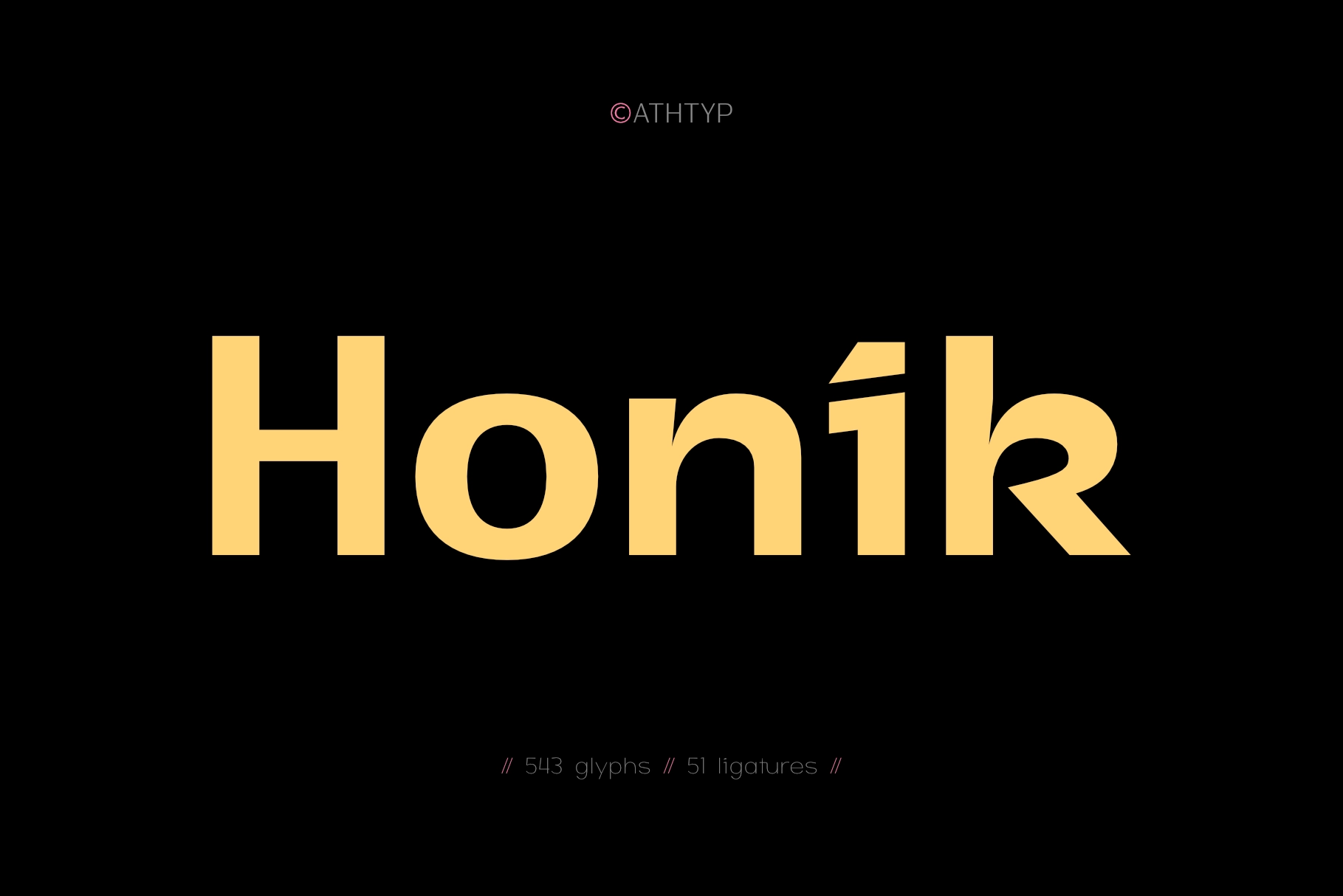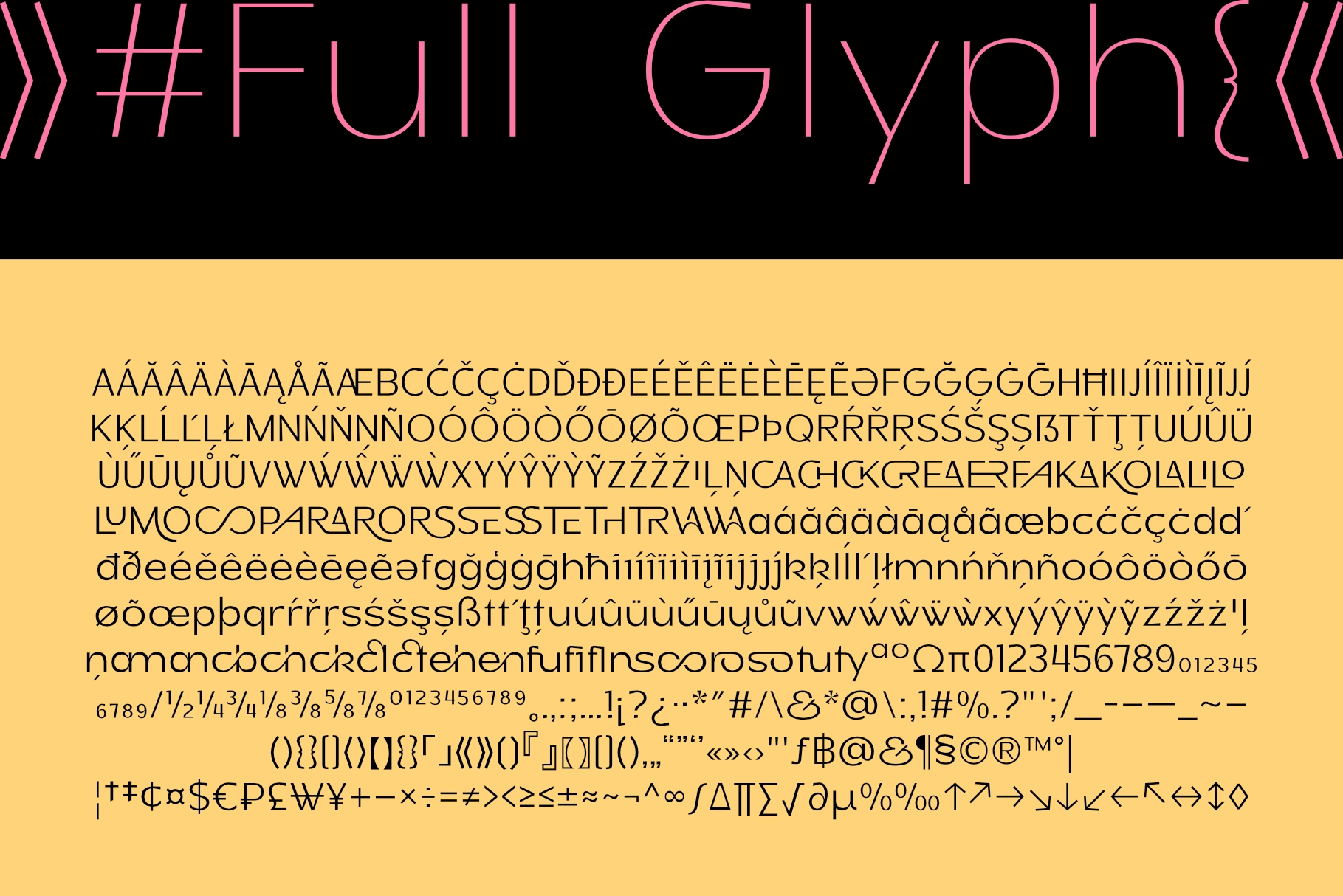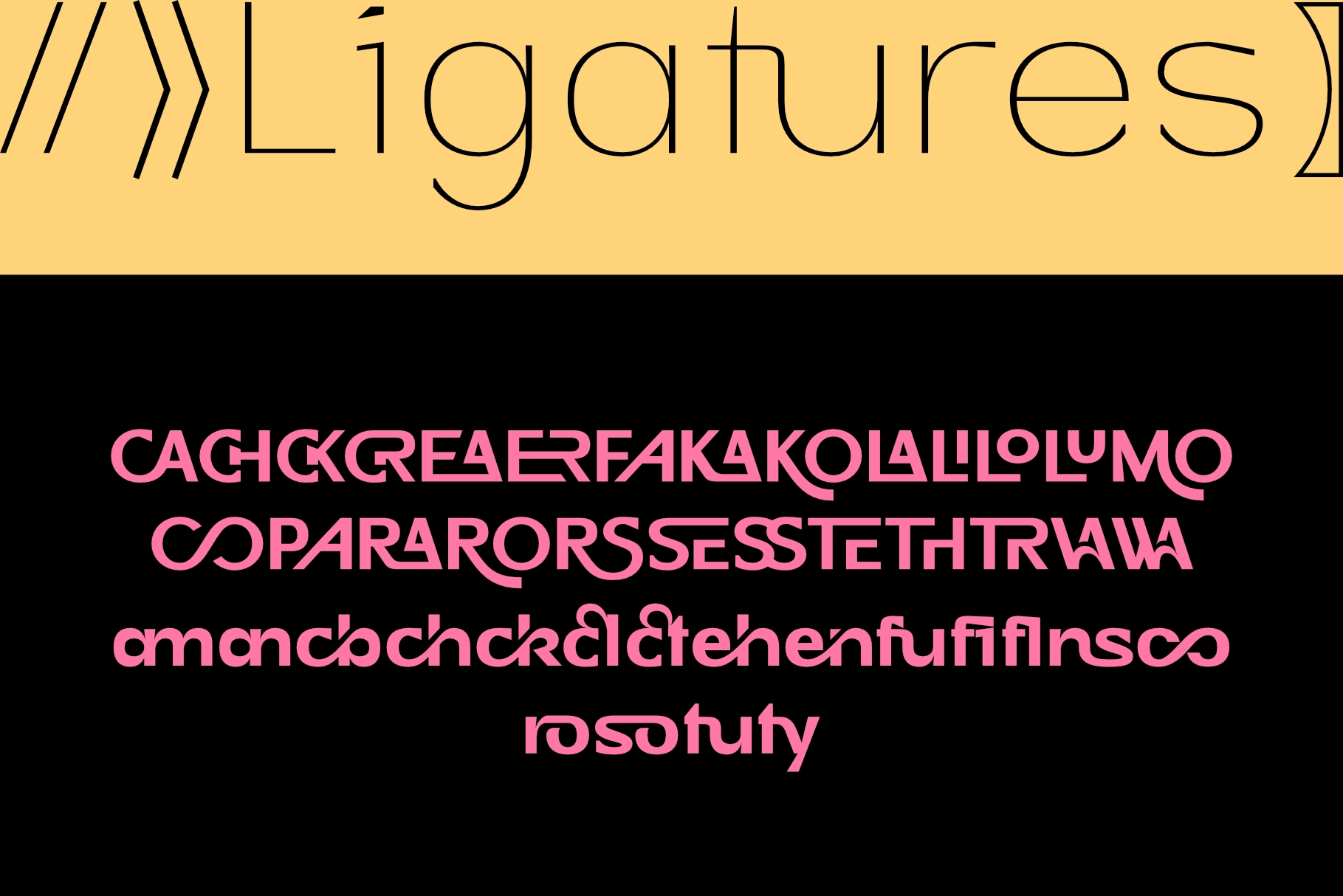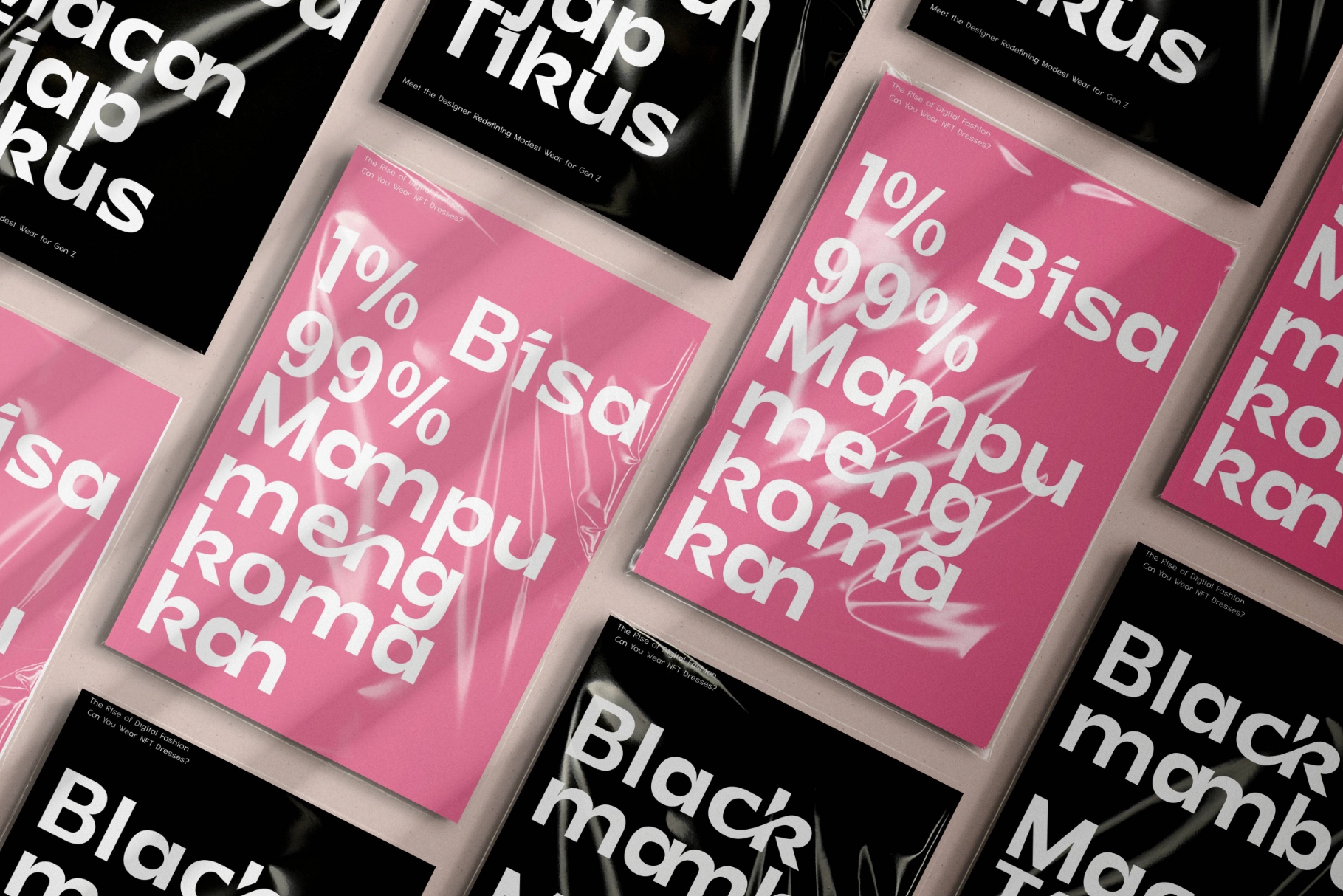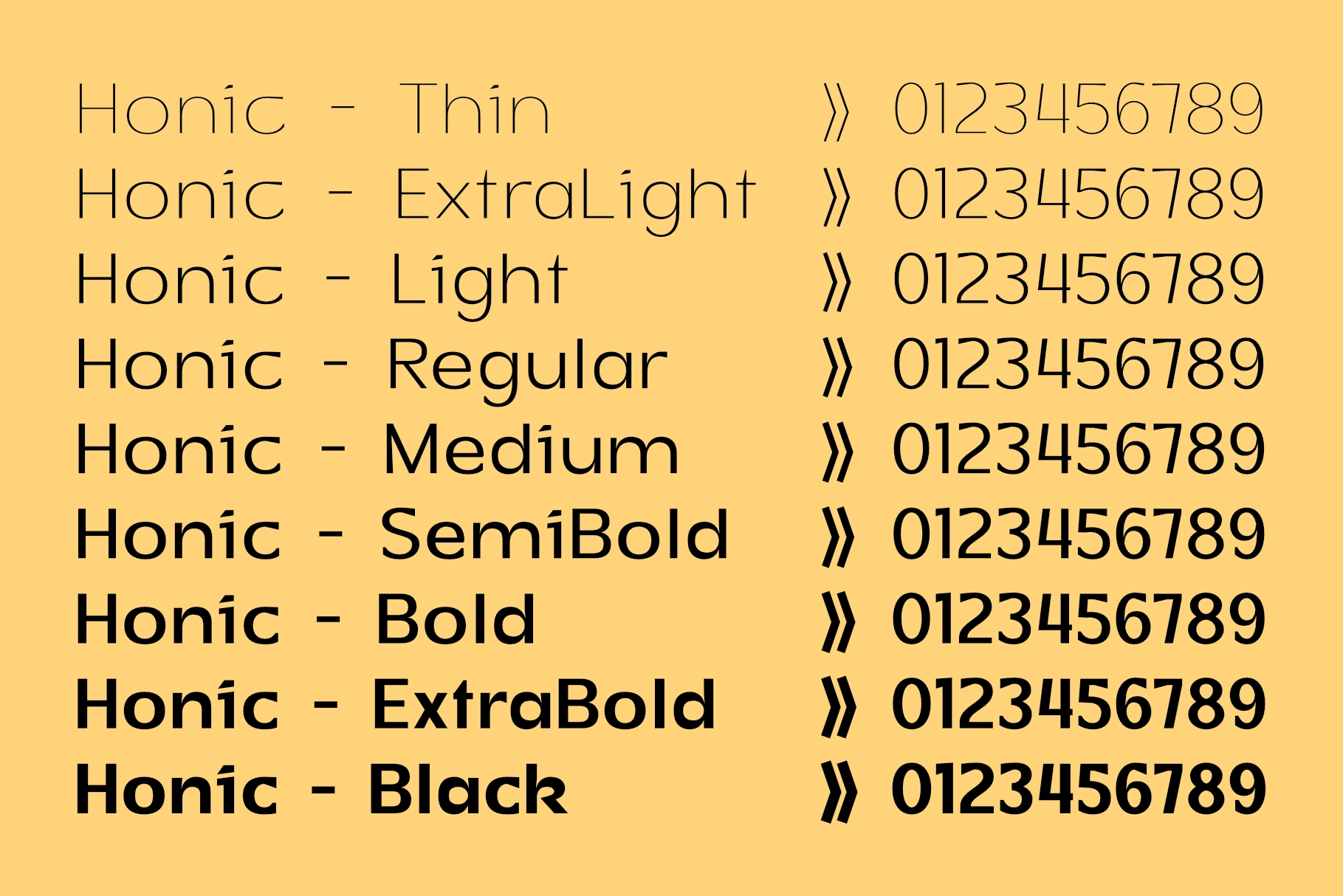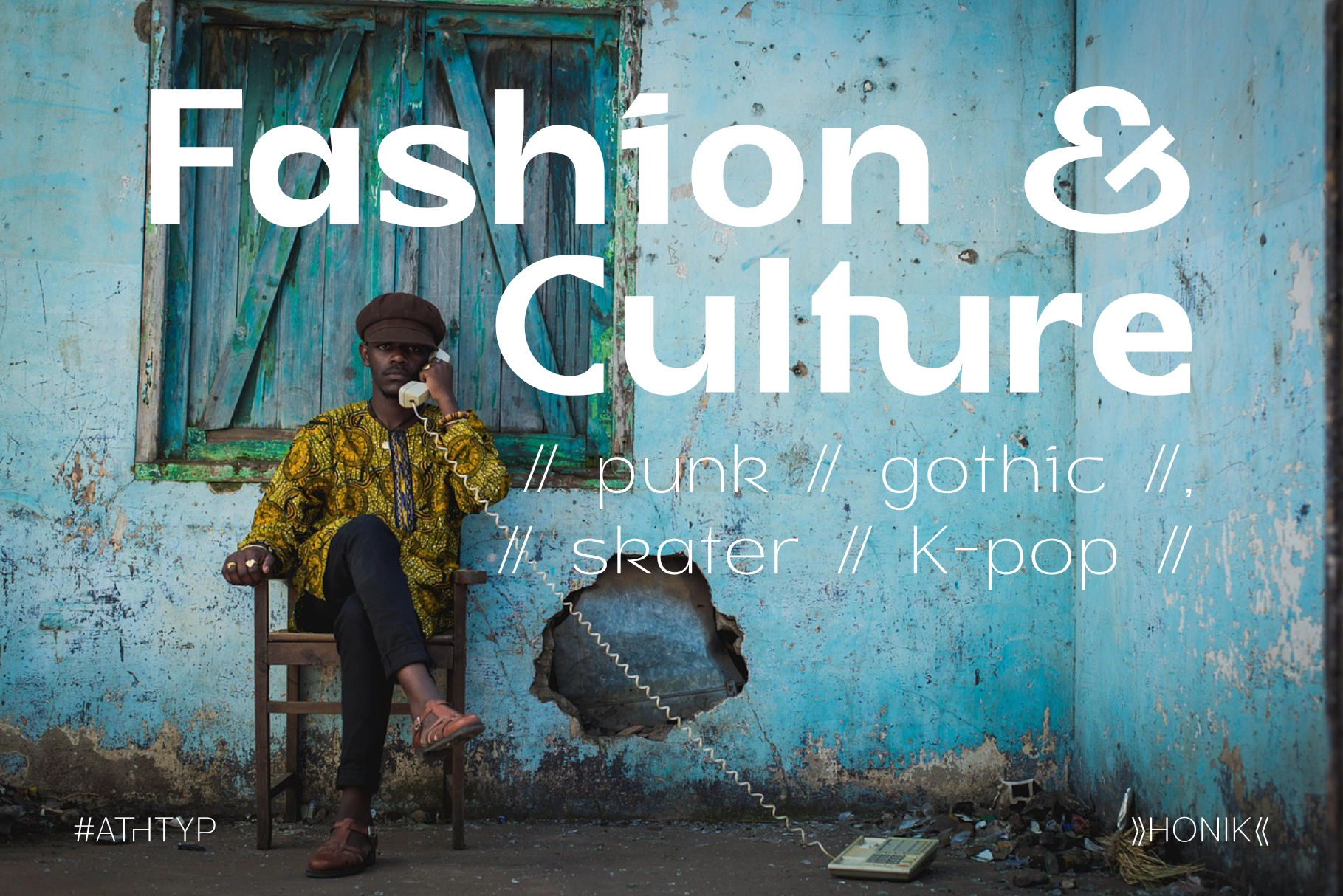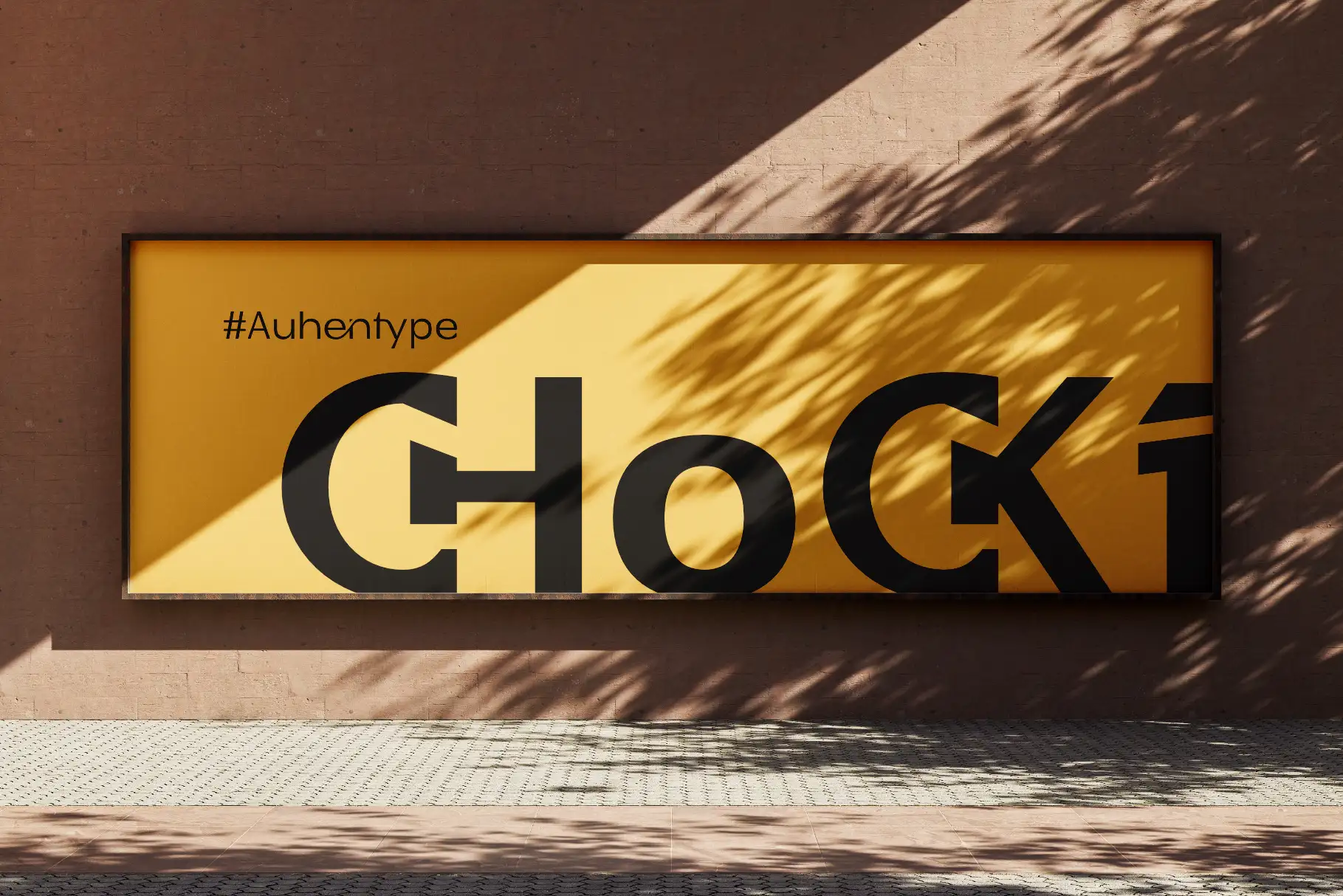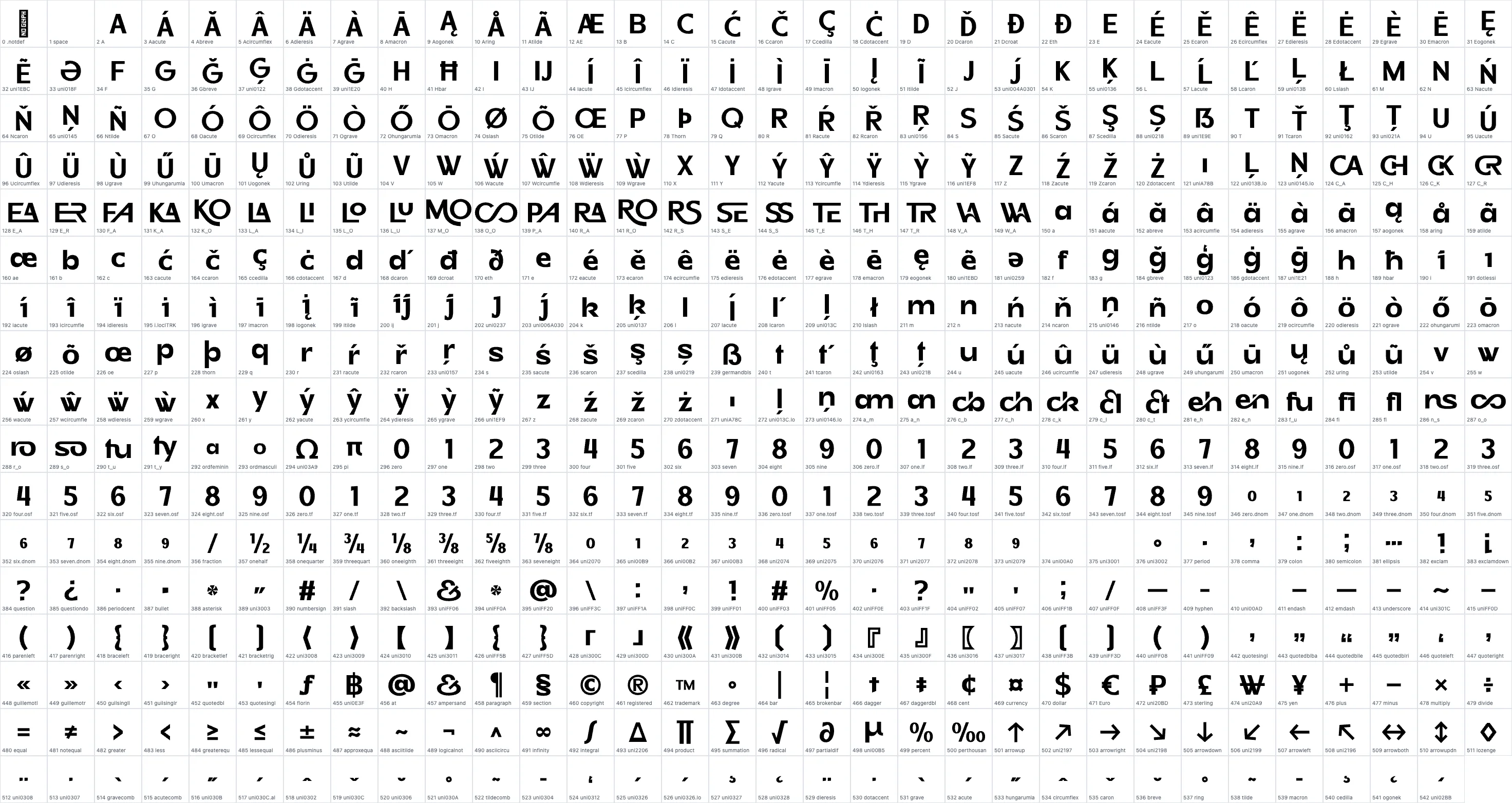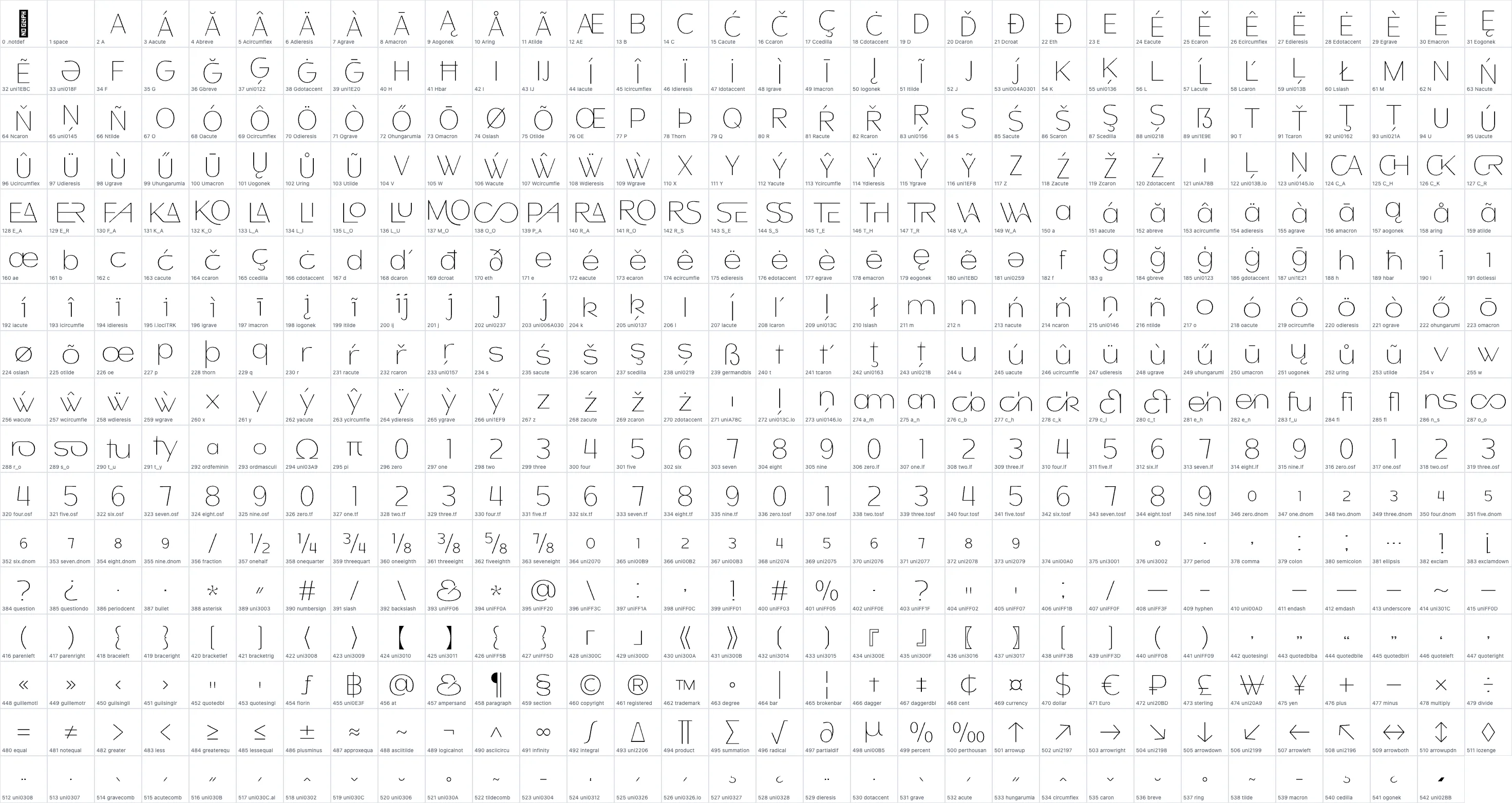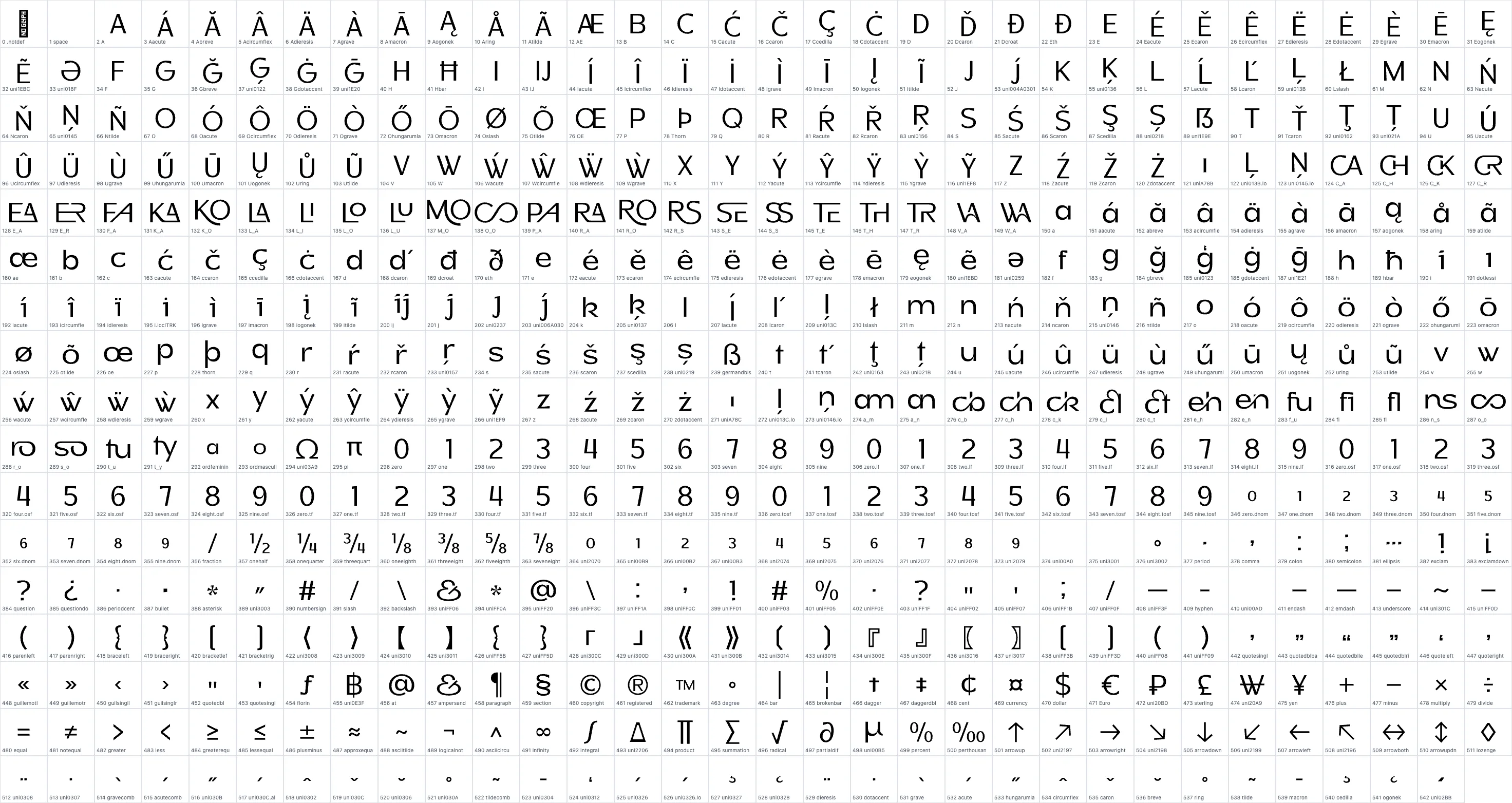
Honick – Clean and Modern Geometric Sans
Perfect for Branding, Editorial & Web Design
Use Honick for modern branding, stylish packaging, editorial headlines, and digital graphics. From sleek startups to bold fashion brands Honick elevates your design with its geometric charm.
What’s Included in Honick
* 543 glyphs
* 51 ligatures
* Extensive multilingual support
Why Designers Love HonIk
Honick stands out with its clean geometric style, unique cuts, and playful yet professional feel. It’s flexible, easy to pair, and timelessly modern.